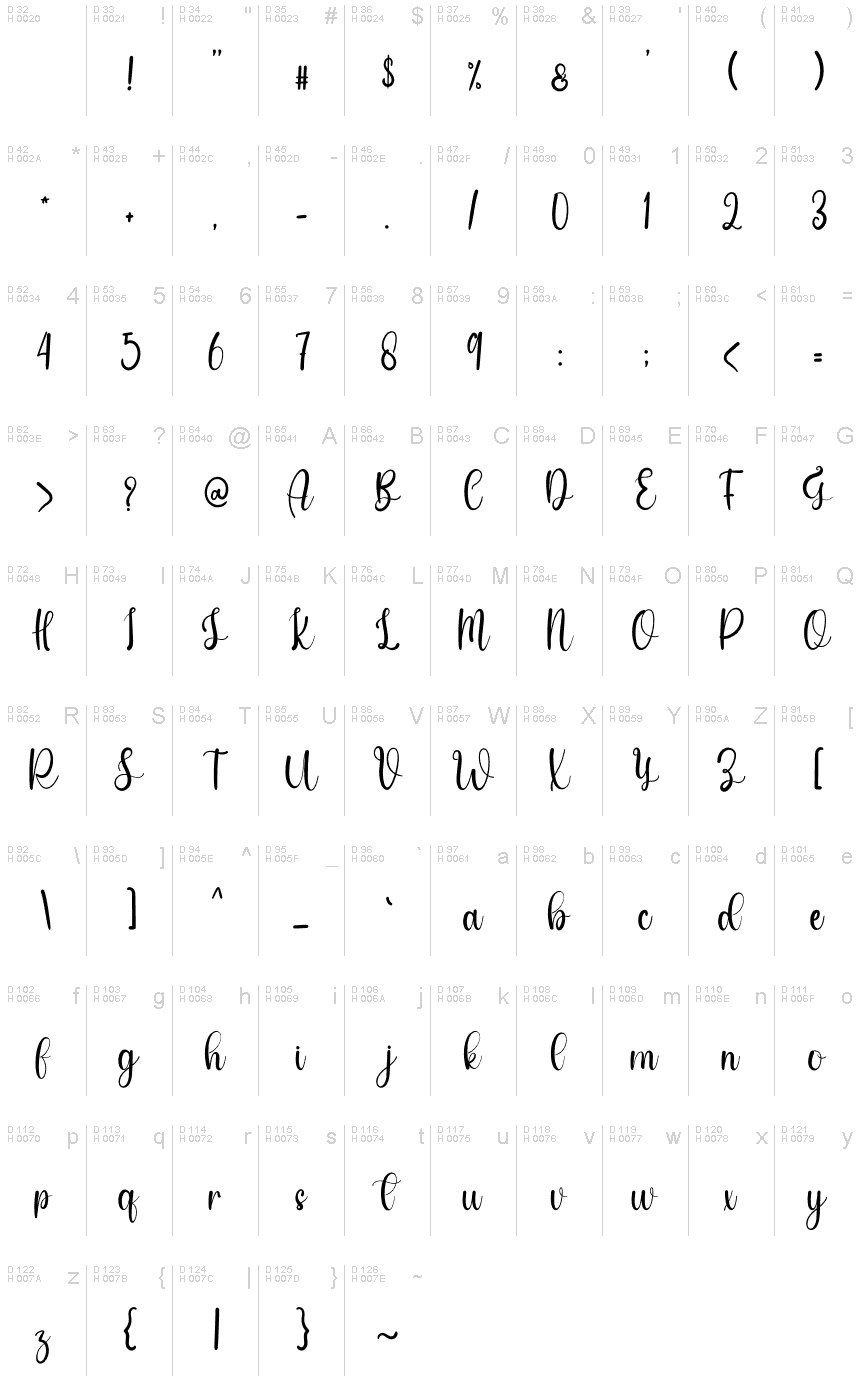
Holiday
Holiday, a charming semi-light handwritten font by PiPi Creative, adds a touch of whimsy to any project. Its delicate strokes and playful curves bring a sense of joy and authenticity to wedding invitations, greeting cards, and party decorations.
The Holiday font's unique personality effortlessly captures the spirit of celebration, making it perfect for designing festive banners, posters, and social media graphics. With its versatile nature, this delightful typeface can also be used in children's book illustrations or adding a personal touch to DIY crafts.
Let Holiday inspire your creativity and make every occasion truly special.